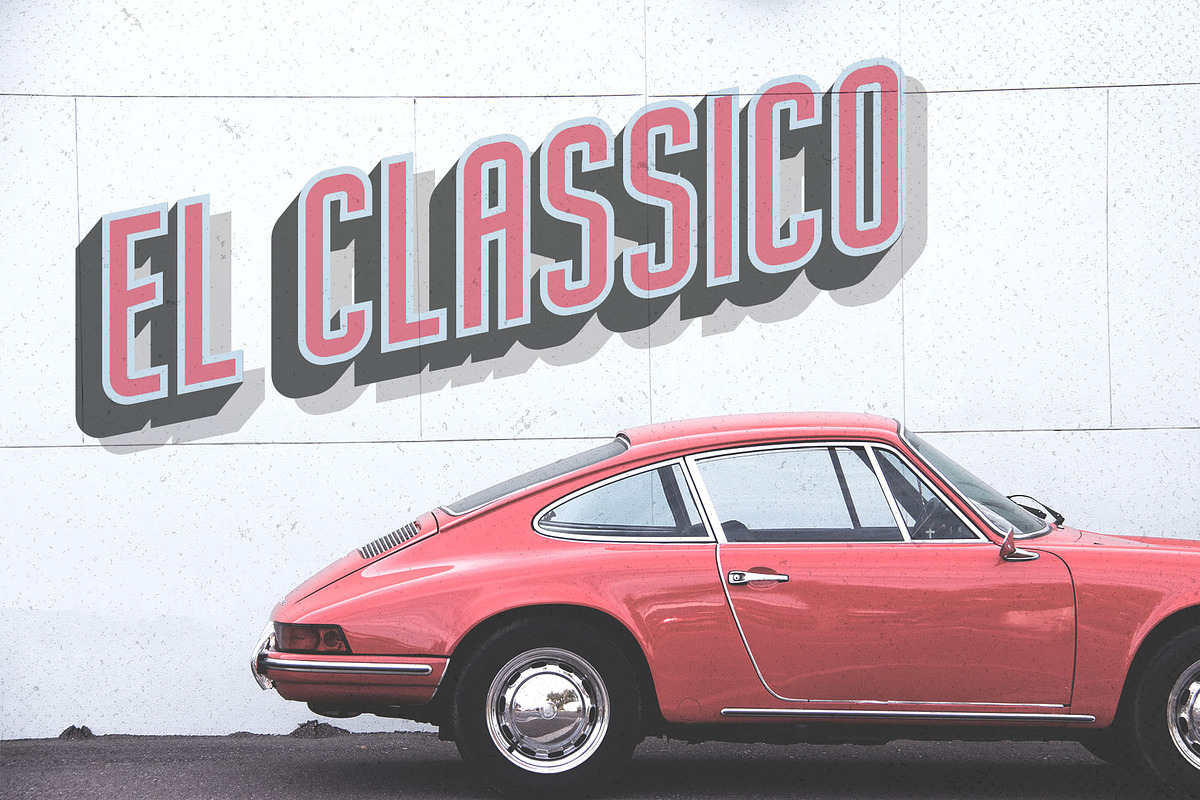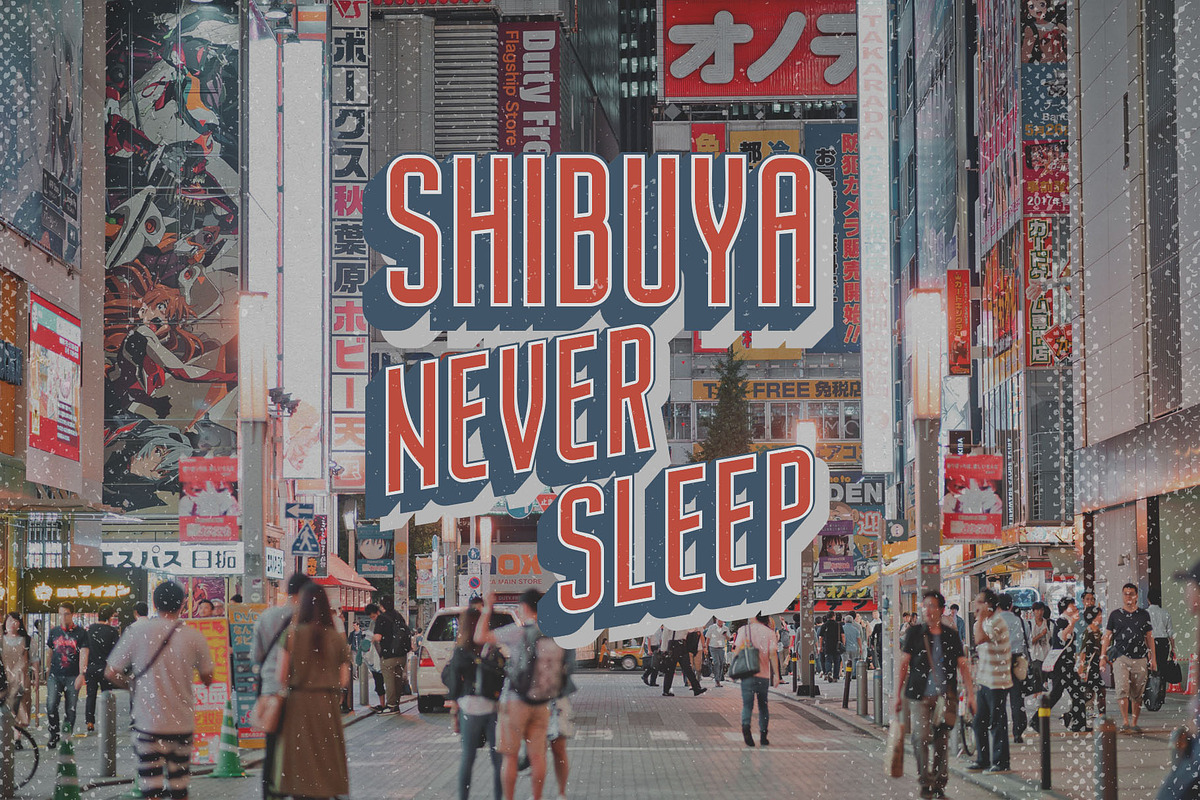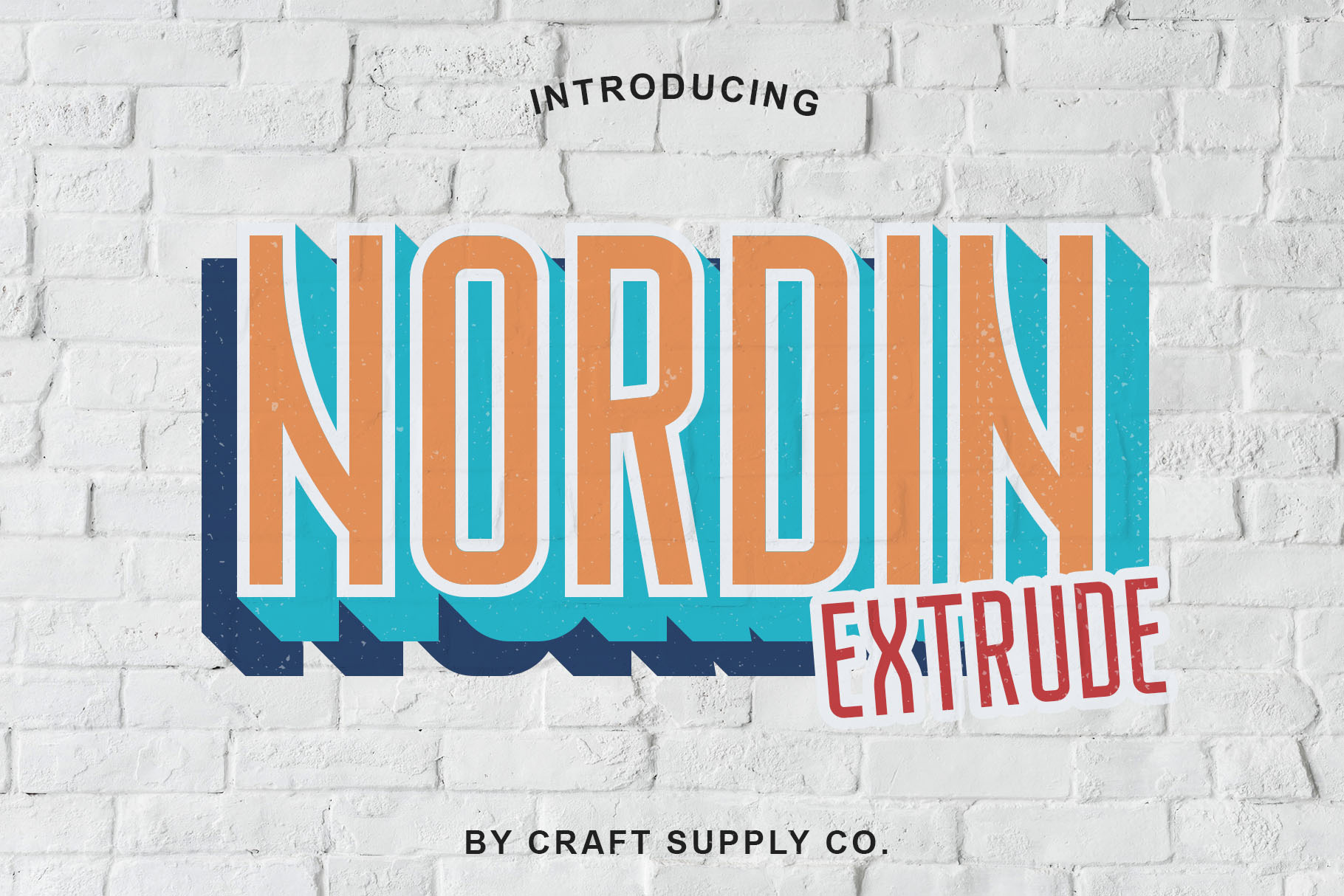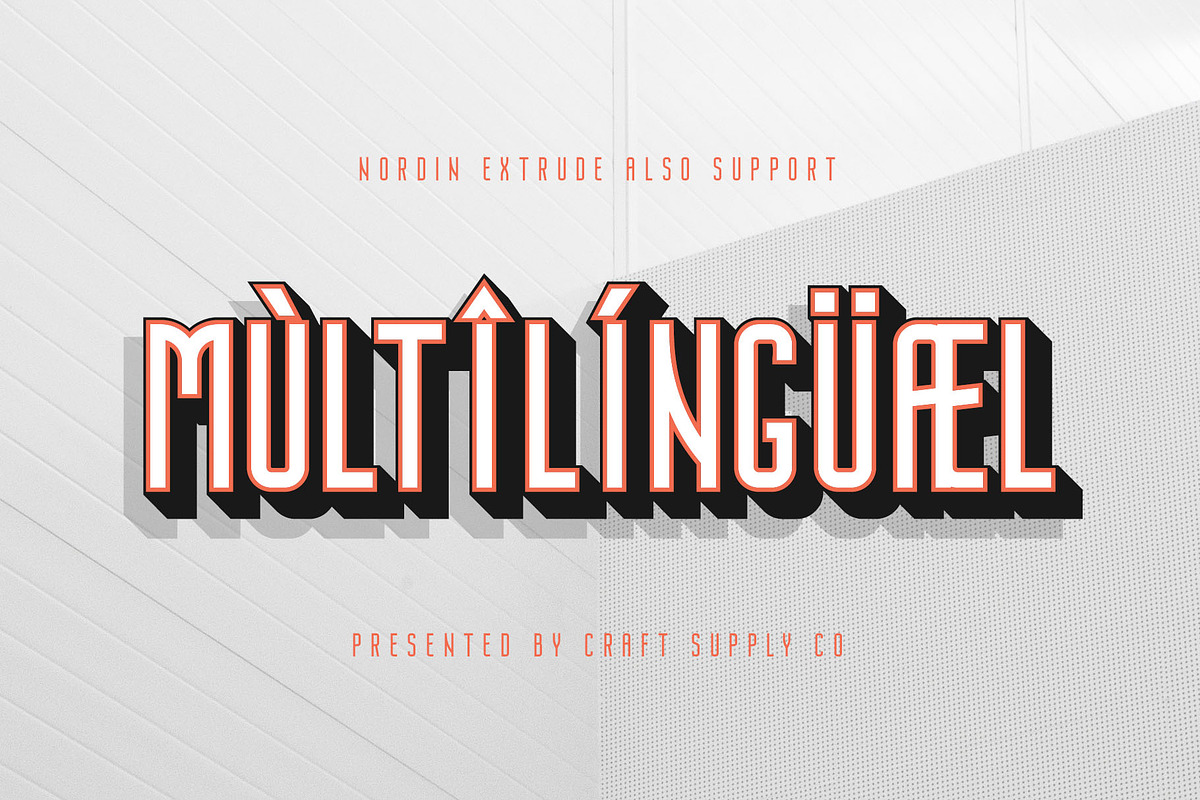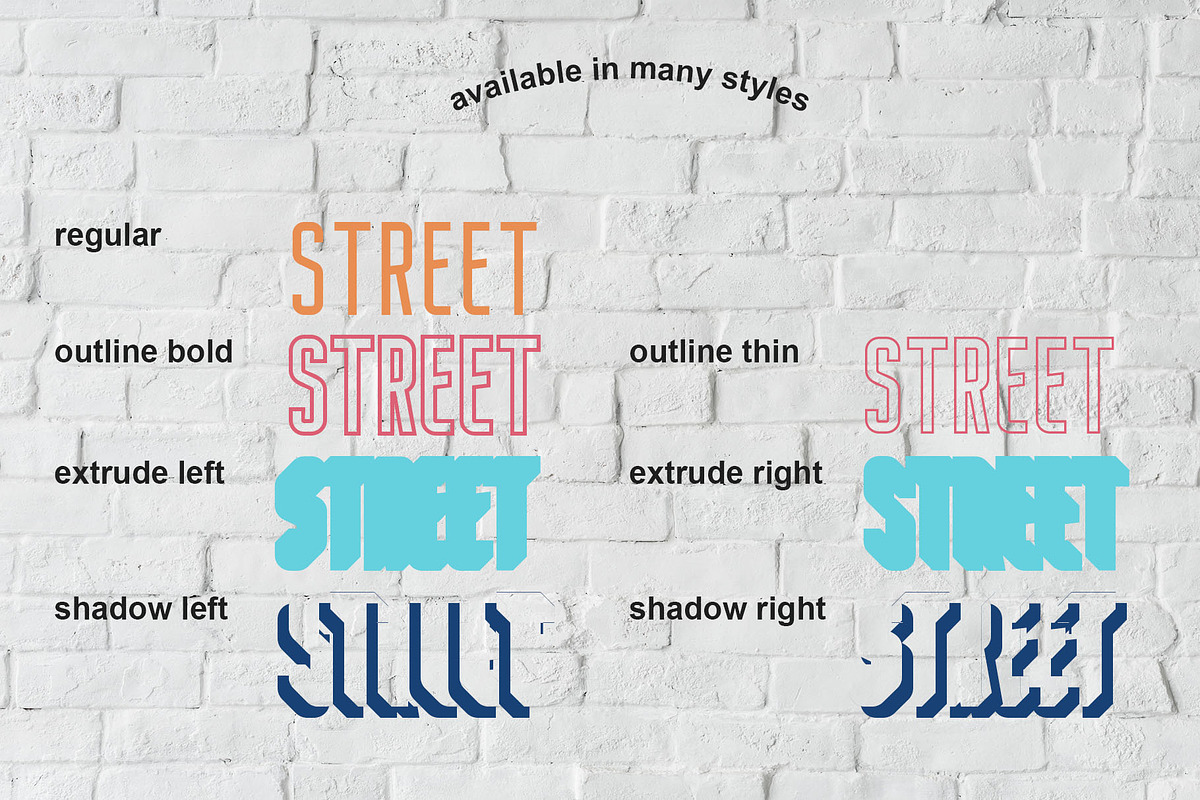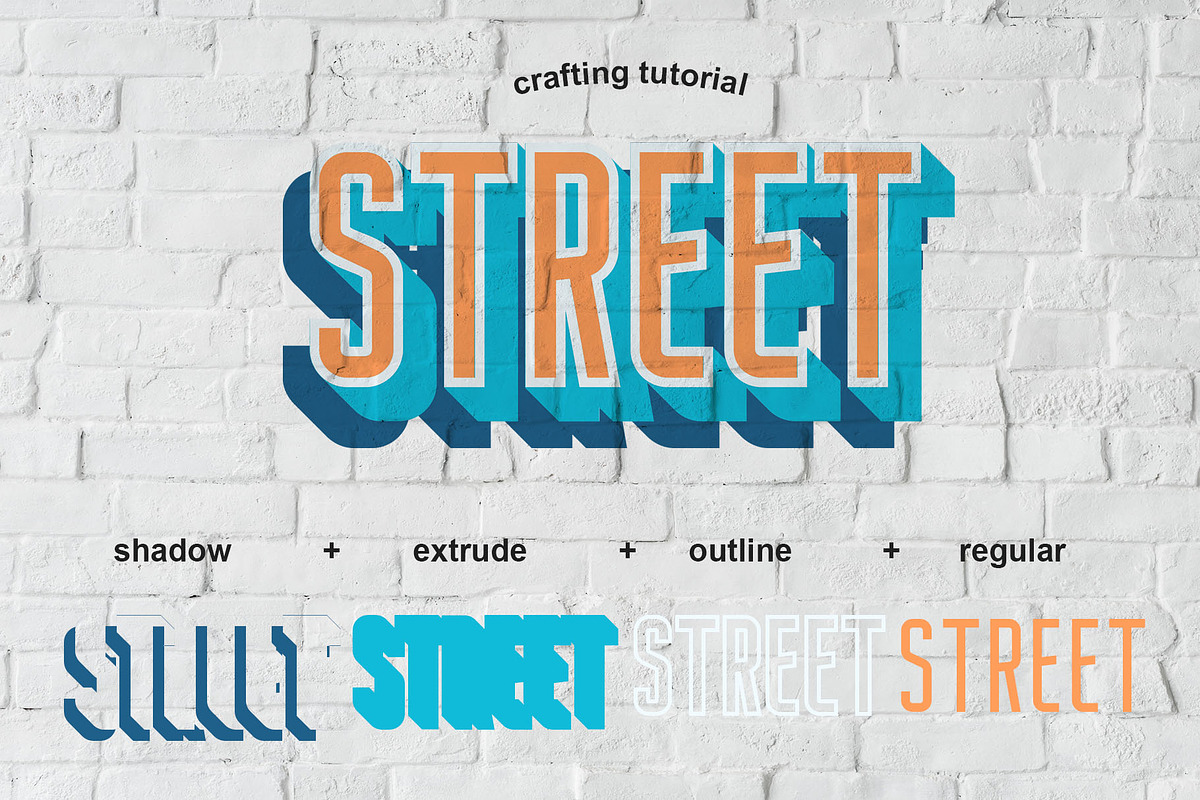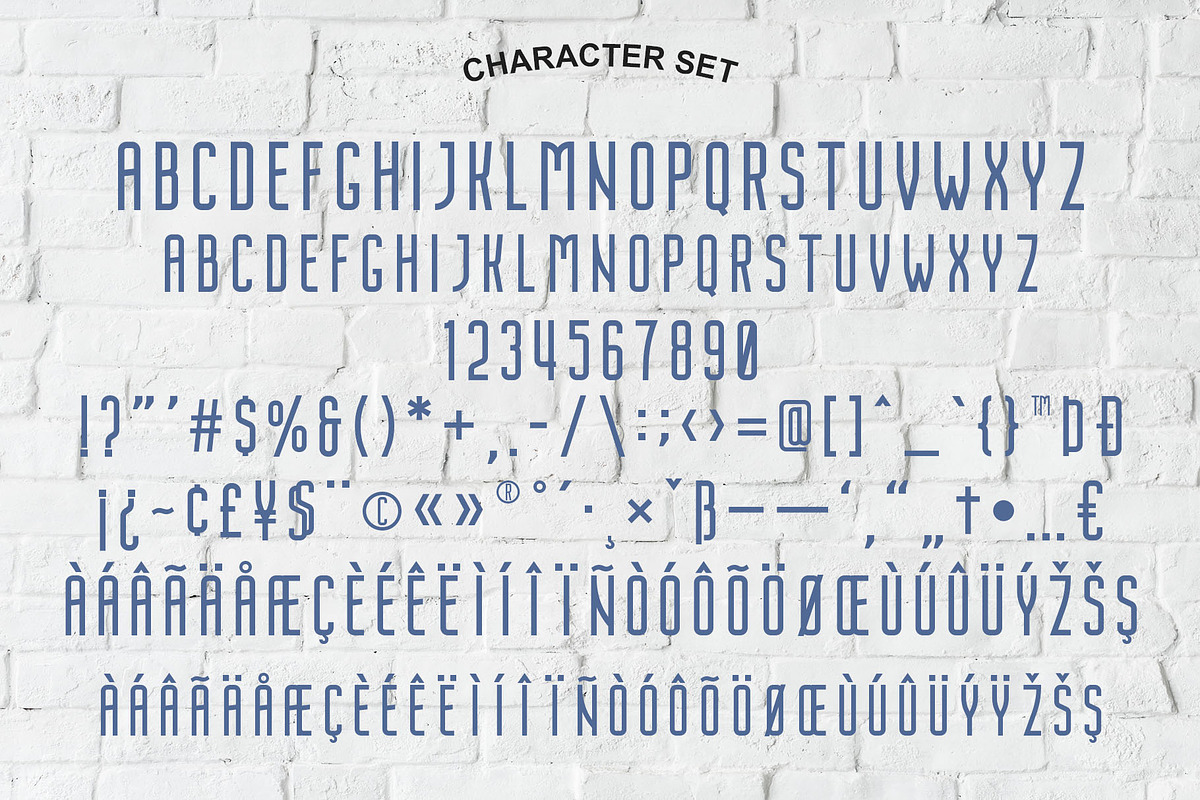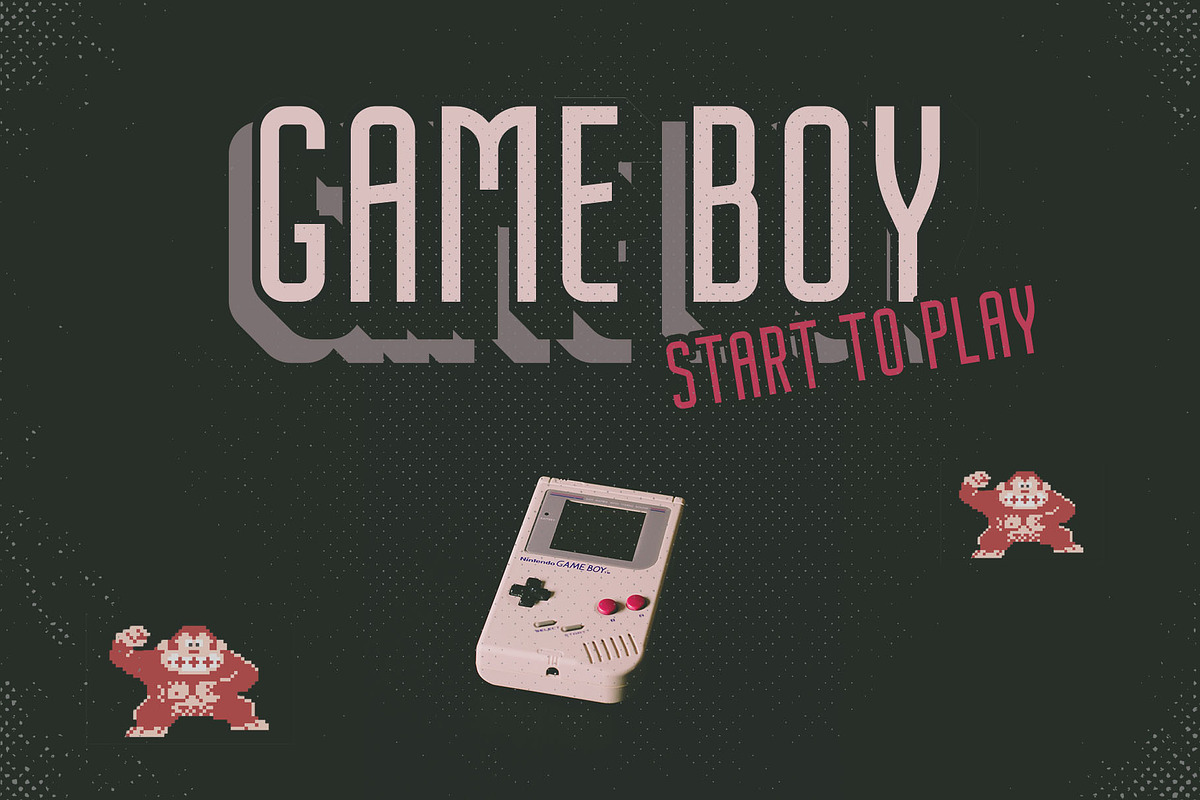
Nordin Extrude Font Family
Introducing New Font : Nordin Extrude Font Family - 7 Layered Fonts
Nordin Extrude Font Family is a Sans Serif style display font in 7 layers, Nordin Extrude Font Family was the result of an exploration of Retro American and European bold Sans Serif lettering for advertising. is an attractive contemporary typeface drawn from scratch with brand-new, more vigorous detailing — and layerable variations for chromatic use.
- All Caps
- Accents (Multilingual characters) (AÀÁÂÃÄÅCÇDÐEÈÉÊËIÌÍÎÏNÑOØÒÓÔÕÖUÙÜÚÛWYÝŸỲŸÆŒßÞ)